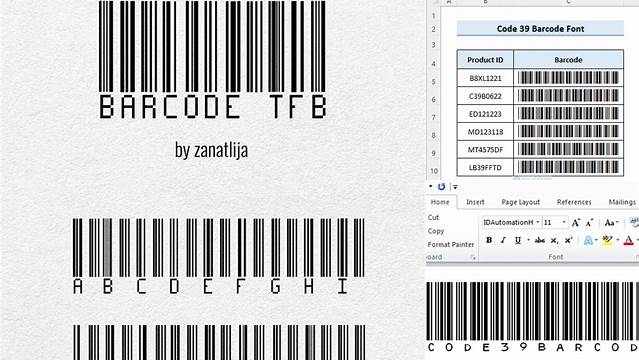
Code 39 Barcode Font: Free Download Guide
Hey guys! Ever needed to generate barcodes and found yourself in a maze of complicated software and expensive fonts? Well, fret no more! This article is your ultimate guide to finding and using the Code 39 barcode font, and the best part? We're focusing on free downloads. Let's dive in and make barcode generation a breeze!
What is Code 39 Barcode?
Before we jump into the nitty-gritty of downloading fonts, let's quickly recap what Code 39 barcode actually is. It's one of the most common types of barcodes out there, widely used in various industries for labeling and tracking. Unlike some other barcodes that only support numbers, Code 39 can handle both numbers and letters, making it super versatile. It's a discrete barcode, meaning each character is separated by a space, which simplifies the decoding process. Understanding this fundamental aspect is crucial before we get deeper into utilizing the font. From retail to logistics, the ability to encode alphanumeric data makes the Code 39 barcode a staple.
This flexibility has made it a preferred choice for internal asset tracking and inventory management, where detailed descriptions and identifiers are necessary. Moreover, it is relatively easy to implement, requiring less sophisticated scanning equipment compared to denser barcode types. Knowing these benefits helps appreciate why having a free, reliable font to generate Code 39 barcode is such a valuable asset for businesses and individuals alike.
Why Use a Code 39 Barcode Font?
So, why opt for a Code 39 barcode font instead of dedicated barcode software? Well, the biggest advantage is simplicity and integration. A font can be used directly within your existing applications like Word, Excel, or even graphic design software. This eliminates the need to learn new programs or export/import data between different platforms. Plus, using a font gives you greater control over the appearance of the barcode, allowing you to adjust the size, style, and placement with ease. Think of the convenience of creating barcodes directly within your familiar document editing environment.
Imagine you’re creating a set of labels for your small business. Instead of wrestling with separate barcode generation tools, you can simply type your data, apply the Code 39 barcode font, and boom – instant barcode! This streamlined approach saves time and reduces the potential for errors that can arise from transferring data between different systems. Furthermore, fonts are typically lightweight and require minimal system resources, making them an efficient solution even on older computers. Therefore, choosing a font for barcode generation is a smart move for anyone seeking a straightforward and adaptable method.
If you're still facing issues after restarting, check if the font file is corrupted. You can try downloading the font again from the original source to ensure you have a clean copy. Also, verify that your operating system supports the font type. While most modern operating systems support both .ttf and .otf fonts, older systems might have compatibility issues. If you're using an older system, consider upgrading to a newer version to ensure proper font support. Following these steps should help you get your Code 39 barcode font up and running smoothly in no time.
Using the Code 39 Barcode Font in Word
Let's see how to use your newly installed Code 39 barcode font in Microsoft Word. Open Word and type the data you want to encode into a barcode. Select the text and change the font to your Code 39 barcode font. You'll notice that the text transforms into a barcode-like pattern. However, there's one crucial step: you need to add start and stop characters to the beginning and end of your data. These characters are usually asterisks (*). So, if you want to encode "12345", you would type "12345" before applying the font.
Without these start and stop characters, the barcode scanner won't be able to recognize the barcode correctly. This is because the asterisks signal to the scanner where the barcode begins and ends. Experiment with different font sizes to adjust the width and height of the barcode. You can also fine-tune the spacing between characters by adjusting the character spacing settings in Word. Remember to test your barcode with a scanner to ensure it's readable before printing a large batch of labels. With a little practice, you'll be generating professional-looking Code 39 barcode labels directly from Word in no time.
Generating Barcodes in Excel with Code 39 Font
Excel is another great tool for generating barcodes using the Code 39 barcode font. The process is similar to Word, but you can leverage Excel's formulas and functions to automate barcode creation. In a cell, enter the data you want to encode. In another cell, use the formula =""&A1&"" (assuming your data is in cell A1) to add the start and stop characters. Then, apply the Code 39 barcode font to the cell containing the formula. Excel will automatically generate the barcode based on the data in cell A1.
This method is particularly useful when you have a large dataset of items that need to be barcoded. You can simply drag the formula down to apply it to all the rows in your dataset. Excel will automatically update the references to the correct cells, generating barcodes for each item in your list. You can also use Excel's conditional formatting feature to highlight cells with invalid data or errors, making it easier to identify and correct any issues before printing. This combination of formulas and font formatting makes Excel a powerful tool for generating barcodes on a large scale.
Sometimes, things don't go as planned. Here are some common issues you might encounter when using a Code 39 barcode font and how to troubleshoot them. First, if your barcode isn't scanning, double-check that you've added the start and stop characters (*). Also, ensure that the font size is large enough for the scanner to read. If the barcode appears distorted or incomplete, try adjusting the character spacing in your application. If you're still having problems, try a different Code 39 barcode font from a different source. It's possible that the font you're using is corrupted or has compatibility issues with your system.
Another common issue is incorrect data encoding. Make sure that the data you're encoding is valid according to the Code 39 standard. This means that you should only use alphanumeric characters and a few special characters like spaces, hyphens, and periods. Avoid using special characters that are not supported by the Code 39 standard, as this can lead to decoding errors. Finally, remember to test your barcodes with different scanners to ensure compatibility. Some scanners might have difficulty reading barcodes generated with certain fonts or font sizes. By addressing these common issues, you can ensure that your barcodes are accurate, readable, and scannable.
Best Practices for Code 39 Barcode Font Usage
To ensure your Code 39 barcode font is used effectively, follow these best practices. Always use start and stop characters (*). Choose a font size that's large enough for easy scanning, but not so large that the barcode becomes unwieldy. Use a clean, uncluttered background for your barcodes to improve readability. Avoid printing barcodes on glossy or reflective surfaces, as these can interfere with the scanner's ability to read the barcode. Test your barcodes with different scanners and under different lighting conditions to ensure consistent performance.
When printing barcodes, use a high-quality printer with a resolution of at least 300 DPI. This will ensure that the barcode is sharp and well-defined. Regularly clean your printer heads to prevent smudging or streaking, which can also affect barcode readability. If you're generating barcodes for products that will be exposed to harsh environments, consider using durable labels that are resistant to water, chemicals, and abrasion. By following these best practices, you can minimize errors, improve scanning accuracy, and ensure that your barcodes remain readable throughout their lifespan.
Code 39 vs. Other Barcode Types
Code 39 is a workhorse, but it's not the only barcode type out there. Let's compare it to some other popular options. Code 128 is a denser barcode that can encode more data in the same amount of space. However, it's more complex to implement and requires more sophisticated scanning equipment. UPC (Universal Product Code) is commonly used in retail for product identification, but it only supports numbers and has a fixed length. QR codes are two-dimensional barcodes that can store a vast amount of data, including URLs, text, and images. However, they require specialized QR code scanners or smartphone apps to read.
Compared to these other barcode types, Code 39 offers a good balance of simplicity, versatility, and compatibility. It's easy to implement, supports alphanumeric characters, and can be read by most standard barcode scanners. However, it's not as dense as Code 128 or QR codes, so it might not be suitable for applications that require encoding a large amount of data in a small space. The choice of barcode type ultimately depends on your specific needs and requirements. Consider the amount of data you need to encode, the scanning equipment you have available, and the environment in which the barcode will be used when making your decision.
Alternatives to Free Code 39 Barcode Fonts
While free Code 39 barcode fonts are great, there are also paid alternatives that offer additional features and support. Commercial barcode font packages often include multiple font styles, advanced customization options, and dedicated technical support. They may also offer features like checksum calculation, automatic start/stop character insertion, and integration with popular software applications. If you require these advanced features or need guaranteed reliability and support, a paid barcode font package might be a worthwhile investment.
Another alternative is to use dedicated barcode generation software. These programs typically offer a wider range of barcode types, advanced data encoding options, and sophisticated label design tools. They often include features like database integration, serial number generation, and automatic barcode sizing. While these software solutions can be more expensive than barcode fonts, they offer a comprehensive set of tools for creating professional-quality barcodes. Ultimately, the best alternative depends on your budget, technical expertise, and specific barcode generation needs.
Code 39 Barcode Font for Commercial Use
Using a Code 39 barcode font for commercial purposes requires careful consideration of licensing terms. While many free fonts are available for personal use, commercial use may be restricted. Always review the font's license agreement to ensure that you have the right to use it in your business. Some fonts may require a commercial license, which typically involves paying a one-time fee or a recurring subscription. Using a font without the proper license can result in legal consequences, so it's essential to do your due diligence.
If you're unsure about the licensing terms of a particular font, contact the font designer or the font foundry that distributes the font. They can provide clarification and help you obtain the necessary licenses. Alternatively, consider using a commercial barcode font package that explicitly grants you the right to use the font for commercial purposes. These packages often come with comprehensive licensing agreements that clearly outline your rights and responsibilities. By taking these precautions, you can ensure that you're using your Code 39 barcode font legally and ethically in your business.
Code 39 Barcode Font Generator Tools
If you don't want to deal with installing fonts, Code 39 barcode font generator tools are a great alternative. These tools are typically web-based or desktop applications that allow you to generate barcodes without installing any software. Simply enter the data you want to encode, select the barcode type (Code 39), and click a button to generate the barcode image. You can then download the image and use it in your documents or labels. Many of these generator tools are free to use, while others offer paid subscriptions with additional features like batch barcode generation and customization options.
When choosing a barcode generator tool, consider its ease of use, the range of barcode types it supports, and the customization options it offers. Also, check the tool's security and privacy policies to ensure that your data is protected. Some generator tools may store your data on their servers, while others process it locally on your computer. If you're concerned about data privacy, choose a tool that processes data locally or offers encryption options. With a good barcode generator tool, you can quickly and easily create barcodes without the hassle of installing and managing fonts.
The Importance of Start and Stop Characters
As we've mentioned, the start and stop characters (*) are critical when using a Code 39 barcode font. These characters signal to the barcode scanner where the barcode begins and ends. Without them, the scanner won't be able to properly decode the barcode. Think of them as the bookends of your barcode – they define the boundaries and tell the scanner where to start and stop reading. Always double-check that you've included these characters before printing or using your barcodes.
The start and stop characters are also essential for ensuring that the barcode is read correctly, even if it's partially obscured or damaged. The scanner uses these characters to synchronize its reading process and compensate for any distortions or imperfections in the barcode. This makes the barcode more robust and reliable, especially in environments where it might be exposed to wear and tear. So, never underestimate the importance of those seemingly simple asterisks – they're the key to successful barcode scanning.
Font Size and Barcode Readability
The font size you choose for your Code 39 barcode font directly impacts its readability. Too small, and the scanner might struggle to differentiate the bars and spaces, leading to scanning errors. Too large, and the barcode might become unwieldy and difficult to fit on your labels or documents. Finding the right balance is key. Experiment with different font sizes to see what works best for your scanner and your application.
Consider the distance from which the barcode will be scanned. If the barcode will be scanned from a distance, you'll need to use a larger font size to ensure that the scanner can read it accurately. Also, consider the resolution of your printer. A higher resolution printer will be able to produce sharper and more well-defined barcodes, allowing you to use a smaller font size without sacrificing readability. Always test your barcodes with different font sizes and scanning distances to find the optimal settings for your specific needs.
Printing Barcodes on Different Materials
The material you print your barcodes on can also affect their readability. Glossy or reflective surfaces can interfere with the scanner's ability to read the barcode, causing scanning errors. Rough or textured surfaces can make the barcode appear distorted or incomplete. Choose a material that provides a smooth, matte finish for optimal barcode readability. If you need to print barcodes on glossy surfaces, consider using a matte laminate or coating to reduce glare.
For barcodes that will be exposed to harsh environments, such as water, chemicals, or abrasion, use durable labels that are specifically designed for these conditions. These labels are typically made from materials like polyester or vinyl and are resistant to fading, smudging, and tearing. They also often have a special adhesive that is resistant to moisture and chemicals. By choosing the right printing material, you can ensure that your barcodes remain readable and scannable, even in challenging environments.
Testing Your Code 39 Barcodes
Testing your Code 39 barcodes is crucial before deploying them in a production environment. This ensures that they are accurate, readable, and compatible with your scanning equipment. Use a variety of scanners to test your barcodes, including handheld scanners, fixed-mount scanners, and smartphone barcode scanners. Test the barcodes under different lighting conditions, such as bright sunlight, fluorescent lighting, and dim lighting. Also, test the barcodes at different scanning distances and angles.
If you encounter any scanning errors, troubleshoot the issue by checking the font size, the start and stop characters, the printing quality, and the scanning equipment. Try adjusting these factors until you achieve reliable scanning results. It's also a good idea to periodically retest your barcodes to ensure that they remain readable over time. This is especially important for barcodes that are exposed to harsh environments or frequent handling. By thoroughly testing your barcodes, you can minimize errors and ensure that your barcode system operates smoothly and efficiently.
Integrating Code 39 Barcode Font with Databases
Integrating a Code 39 barcode font with a database can streamline your data entry and tracking processes. By storing your data in a database, you can easily generate barcodes on demand and link them to specific records. This allows you to quickly and accurately retrieve information about an item by scanning its barcode. To integrate a barcode font with a database, you'll need to use a programming language or scripting tool that can interact with the database and generate barcodes based on the data stored in the database.
Some popular options include PHP, Python, and JavaScript. You'll also need a barcode generation library or API that can convert your data into a barcode image or a barcode font string. Many barcode generation libraries are available for free or for a small fee. Once you have these tools in place, you can write code that retrieves data from the database, adds the start and stop characters, applies the barcode font, and generates the barcode. You can then embed the barcode image or font string in your reports, labels, or other documents. This integration can significantly improve your data management efficiency and accuracy.
Code 39 Barcode Font and Label Printing Software
Code 39 barcode font works seamlessly with label printing software. Label printing software provides a user-friendly interface for designing and printing labels, including barcodes. These programs typically offer a wide range of features, such as drag-and-drop design tools, database integration, serial number generation, and automatic barcode sizing. They also support various label formats and printer types. To use a barcode font with label printing software, simply select the barcode font from the font list and enter the data you want to encode.
The software will automatically add the start and stop characters and generate the barcode. You can then customize the appearance of the barcode by adjusting the font size, the barcode width, and the barcode height. Some label printing software also allows you to add text, images, and other design elements to your labels. This makes it easy to create professional-looking labels with barcodes for your products, assets, or documents. Many label printing software programs are available for free or for a small fee, making them an affordable solution for barcode label printing.
Avoiding Common Mistakes with Code 39 Barcodes
Avoiding common mistakes is key to successful Code 39 barcode implementation. One of the most common mistakes is forgetting to add the start and stop characters (*). Another common mistake is using an incorrect font size, which can make the barcode difficult to read. Also, avoid printing barcodes on glossy or reflective surfaces, as these can interfere with the scanner's ability to read the barcode. Make sure that the data you're encoding is valid according to the Code 39 standard. This means that you should only use alphanumeric characters and a few special characters like spaces, hyphens, and periods.
Avoid using special characters that are not supported by the Code 39 standard, as this can lead to decoding errors. Always test your barcodes with different scanners and under different lighting conditions to ensure consistent performance. By avoiding these common mistakes, you can minimize errors and ensure that your barcodes are accurate, readable, and scannable. Remember to double-check your work and to test your barcodes thoroughly before deploying them in a production environment.
The Future of Code 39 Barcodes
While newer barcode technologies like QR codes are gaining popularity, Code 39 barcodes still have a place in the future. Their simplicity, versatility, and widespread compatibility make them a reliable choice for many applications. They are particularly well-suited for applications where a small amount of alphanumeric data needs to be encoded and where compatibility with existing barcode scanners is important. As long as these requirements remain relevant, Code 39 barcodes will continue to be used.
However, it's likely that they will be increasingly integrated with newer technologies, such as mobile devices and cloud-based systems. This could lead to new applications and use cases for Code 39 barcodes. For example, they could be used to track assets and inventory in real-time using smartphone barcode scanners and cloud-based databases. Or they could be used to authenticate products and prevent counterfeiting by linking barcodes to digital certificates stored in the cloud. The future of Code 39 barcodes is likely to be one of continued relevance and integration with emerging technologies.
Security Considerations for Code 39 Barcodes
While Code 39 barcodes are not inherently secure, there are some security considerations to keep in mind. Because the data encoded in a Code 39 barcode is easily readable, it's important to protect the barcode from unauthorized access or modification. This can be done by using physical security measures, such as restricting access to the barcodes or using tamper-evident labels. It can also be done by using digital security measures, such as encrypting the data encoded in the barcode or using digital signatures to verify the authenticity of the barcode.
Another security consideration is the risk of barcode cloning. It's possible to create a duplicate of a Code 39 barcode by simply copying the barcode image or font string. This could be used to counterfeit products or to gain unauthorized access to restricted areas. To prevent barcode cloning, consider using a barcode scanner that can detect cloned barcodes or by using a unique identifier in the barcode data. By taking these security precautions, you can minimize the risk of barcode fraud and protect your assets and information.
Customizing Code 39 Barcode Appearance
While the basic Code 39 barcode has a standard appearance, there are some ways to customize its appearance to suit your specific needs. You can adjust the font size to change the width and height of the barcode. You can also adjust the character spacing to change the density of the barcode. Some barcode font packages offer different font styles, such as bold or italic, which can be used to further customize the appearance of the barcode. However, it's important to keep in mind that excessive customization can make the barcode difficult to read.
Always test your customized barcodes with different scanners to ensure that they remain readable. You can also add text, images, and other design elements to your labels to create a more visually appealing barcode. However, avoid placing these elements too close to the barcode, as they can interfere with the scanner's ability to read the barcode. By carefully customizing the appearance of your Code 39 barcodes, you can create barcodes that are both functional and visually appealing.
Code 39 Barcode Font and Mobile Devices
Code 39 barcode font and mobile devices are becoming increasingly integrated. Smartphones and tablets can be used to scan Code 39 barcodes, making it easy to track assets, manage inventory, and process transactions on the go. Many mobile barcode scanner apps are available for free or for a small fee. These apps use the device's camera to scan barcodes and can decode a variety of barcode types, including Code 39. Some apps also offer advanced features, such as batch scanning, data export, and integration with cloud-based systems.
To use a Code 39 barcode font with a mobile device, simply install a barcode scanner app and point the device's camera at the barcode. The app will automatically decode the barcode and display the data on the screen. You can then use the data to perform various tasks, such as looking up product information, processing payments, or updating inventory records. This integration of barcode fonts and mobile devices is transforming the way businesses operate and is enabling new levels of efficiency and productivity.
Resources for Learning More About Code 39 Barcodes
There are many resources available for learning more about Code 39 barcodes. Online tutorials, documentation, and forums can provide valuable information about the Code 39 barcode standard, its applications, and its implementation. Websites like Barcode Island and GS1 offer comprehensive resources on barcode technology. You can also find helpful information on Wikipedia and other online encyclopedias. In addition to online resources, many books and articles have been written about barcodes.
These resources can provide in-depth knowledge about the history, theory, and practice of barcode technology. You can also attend industry conferences and workshops to learn from experts and network with other barcode professionals. By taking advantage of these resources, you can gain a deeper understanding of Code 39 barcodes and their role in the world of data management and tracking.